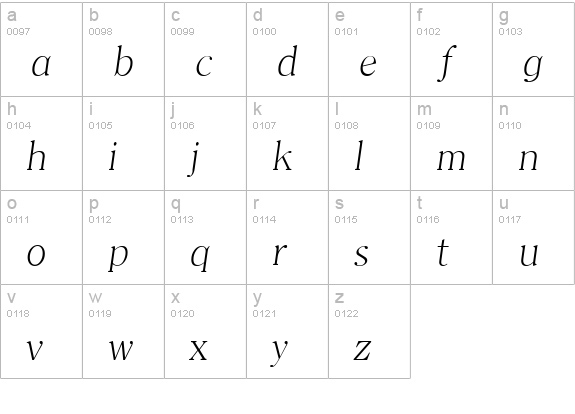
ClearfaceSerial-Xlight-Italic is a distinctive, italic variant in the ClearfaceSerial typeface family \xE2\x80\x94 well suited to design and typography projects.
ClearfaceSerial-Xlight-Italic font is a beautifully crafted typeface that exudes elegance and sophistication. Its delicate and slender letterforms are perfect for adding a touch of refinement to any design project. The italic style adds a sense of movement and grace to the text, making it ideal for conveying a sense of style and sophistication. What makes ClearfaceSerial-Xlight-Italic font even more appealing is that it is available for free download at FontsMarket.com. This means that you can easily access this stunning typeface without any cost, making it a valuable addition to your font collection. Whether you are working on a print design, web project, or any other creative endeavor, ClearfaceSerial-Xlight-Italic font is sure to elevate your work with its timeless beauty and elegance. Download it today and bring a touch of class to your designs.